Type designers love books for two reasons, they are full of beautiful specimens of typography and are a great source of knowledge. These are some of my most opened and referenced books while I am drawing letters.
Type designers love books. Just check out the Type Designers At Work blog and see how many have bookshelves in the background.
The fundamentals and history of type design are fairly static making books an ideal medium to contain this knowledge. In fact, sometimes the older and more obscure books hold the most interesting content.
The following are some of my most opened and referenced books while I am drawing letters:
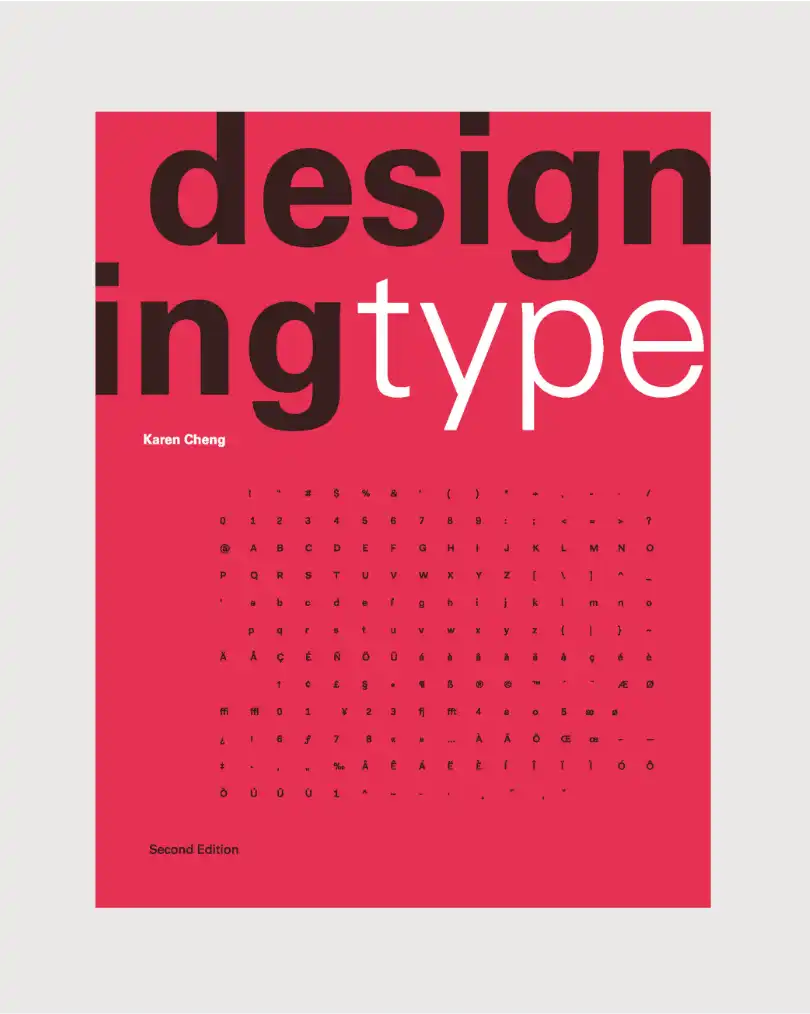
Karen Cheng
This book was my main reference while drawing my first typeface. The book examines each letter in detail, comparing examples across different classifications of typefaces. It is very useful for figuring out visual compensations, metrics, and relationships between upper and lowercase.
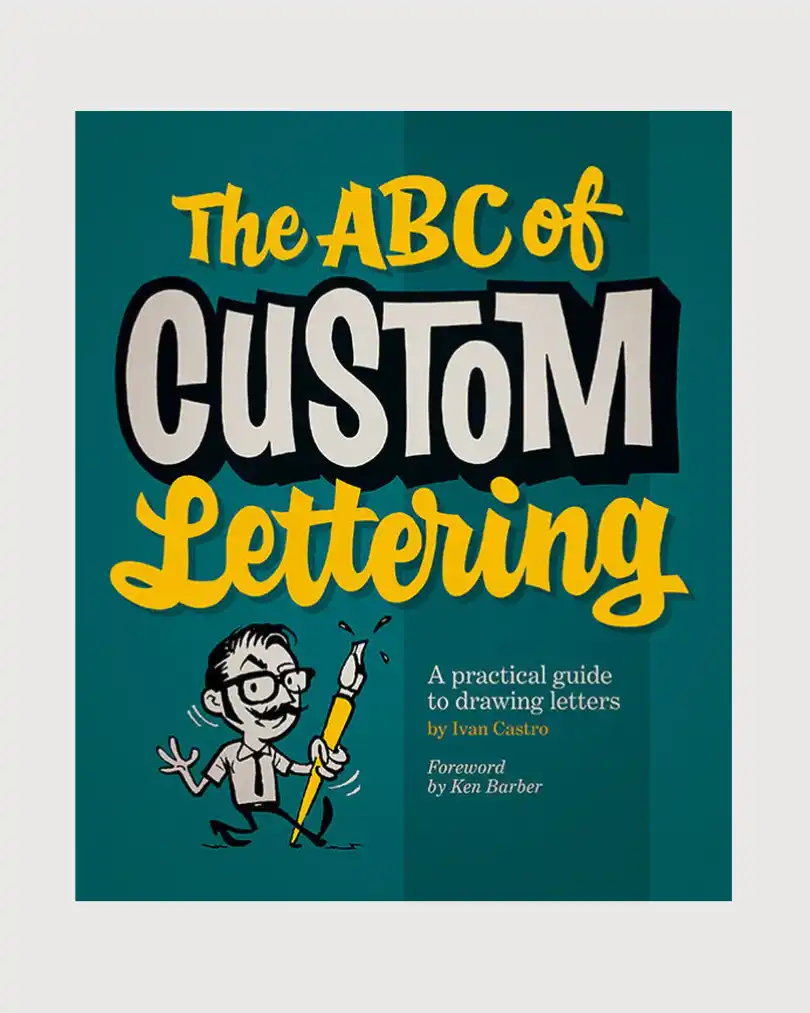
Ivan Castro
Typographic letters come from calligraphic forms and learning some basic calligraphy really helps to create an understanding of letter shapes. The calligraphy section of this workbook is incredibly well-explained and has a great variety of traditional calligraphy models to reference.
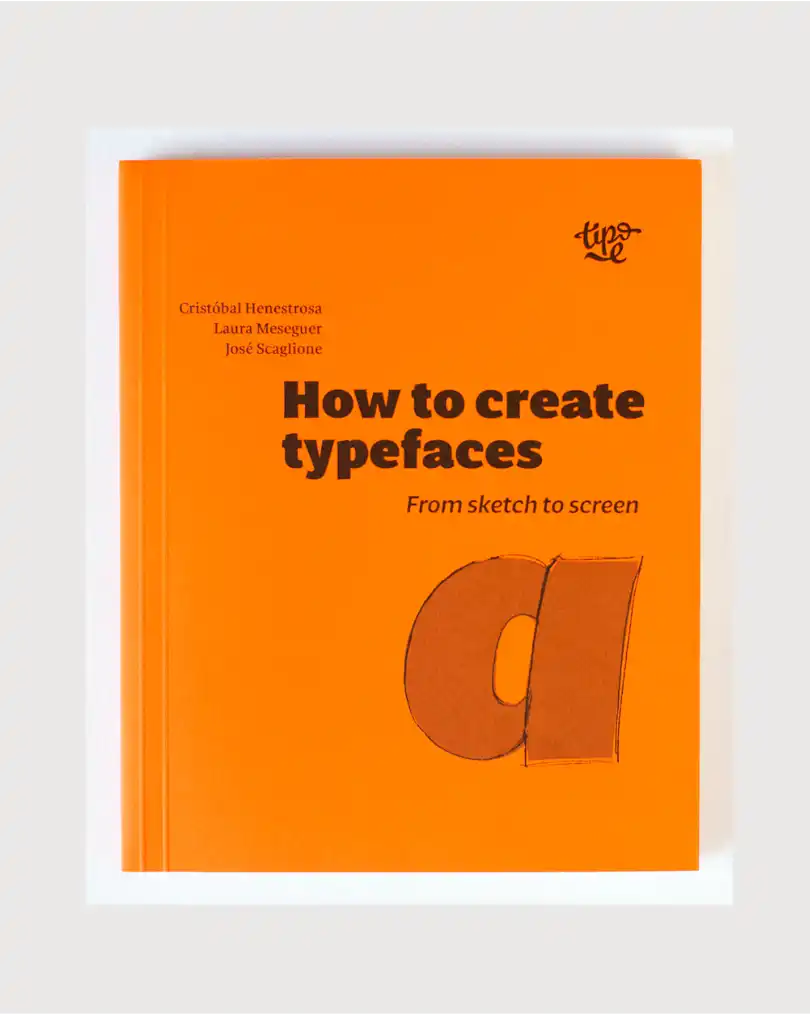
Cristóbal Henestrosa, José Scaglione, Laura Meseguer
This overview of the type design industry provides an essential look into the process of making a typeface. I read it after I had been working in the industry for 5 years and it confirmed a lot of the things I had learned along the way.
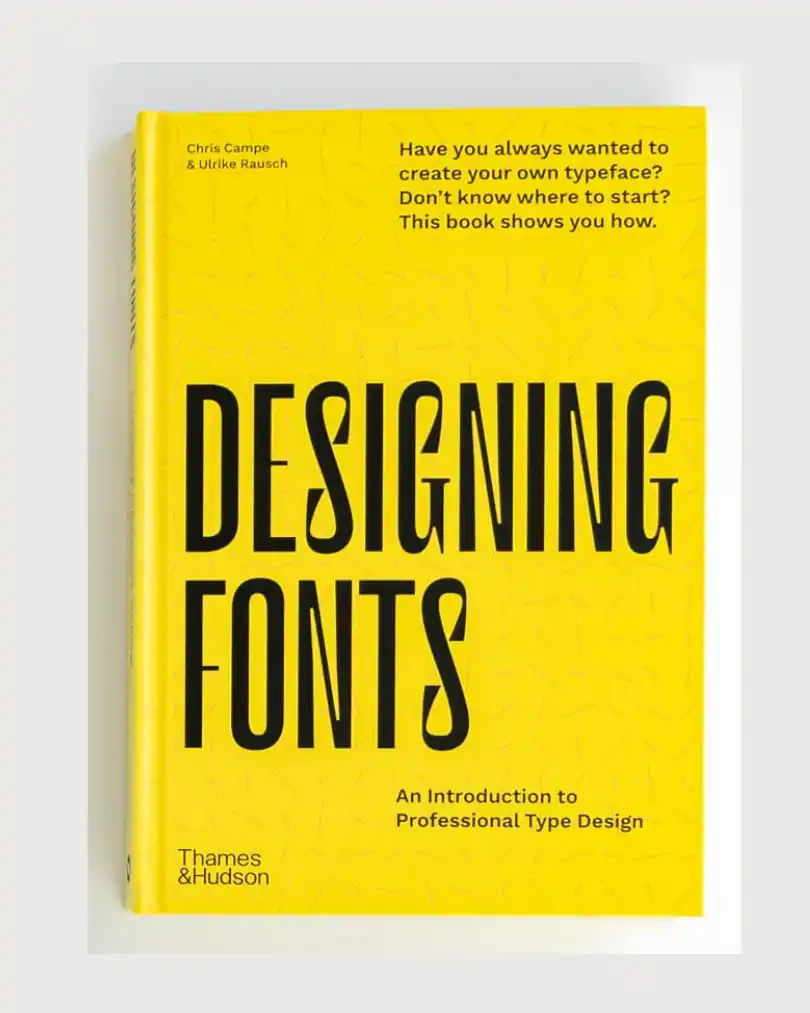
Chris Campe and Ulrike Rausch
I think the same book is available under two different titles but I haven’t confirmed. I own the copy with the yellow cover and it’s a great overview of the process of making fonts.
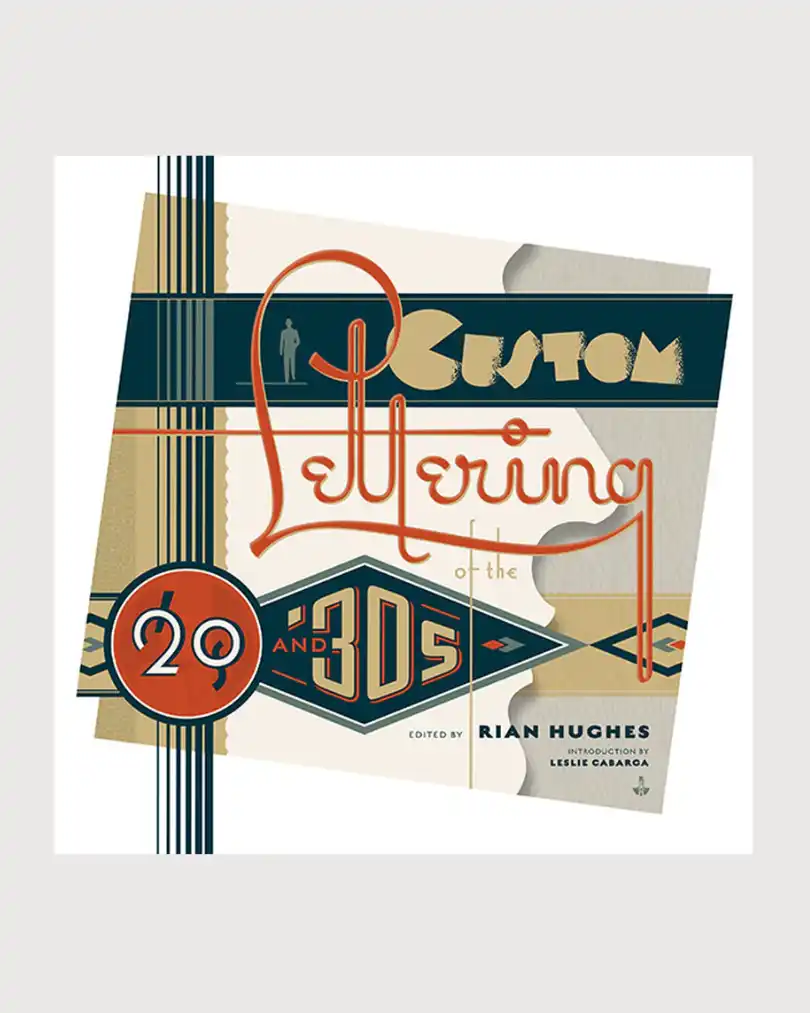
Rian Hughes
This whole series is amazing. Each collection gives an excellent feel for the lettering and visual spirit of the time. A treasure trove of ideas and excellent reference for nailing the tone of a particular era in your work.
Cees De Jong, Alston Purvis, Jan Tholenaar
I didn’t immediately appreciate this book when I bought it in second year university – it was full of old stuff. When I gained an appreciation for old type specimens (especially the layouts and ornamentation) this book became one of my favourites. Also serves as a great jumping off point for researching more into a specific specimen book.
Edward & the Staff of Photo-Lettering (editors) Rondthaler
So many alphabets! This old photo type catalog is an excellent reference on how other designers solved certain problems in certain styles. Many of the specimens in here are no longer accessible because they were never made into a digital format so there are some unique things to look at in here.
Toshi Omagari
Pixel type is freaking cool! I heard Toshi had to play through and beat a lot of the games in order to collect the full specimen of each typeface in this book. It is impressive how much variation can be achieved on an 8x8 grid.
Shoko Mugikura, Tim Ahrens
Thinking of making a text-specific style for your design? This is a must-read detailed study of methods that make type work in small sizes.
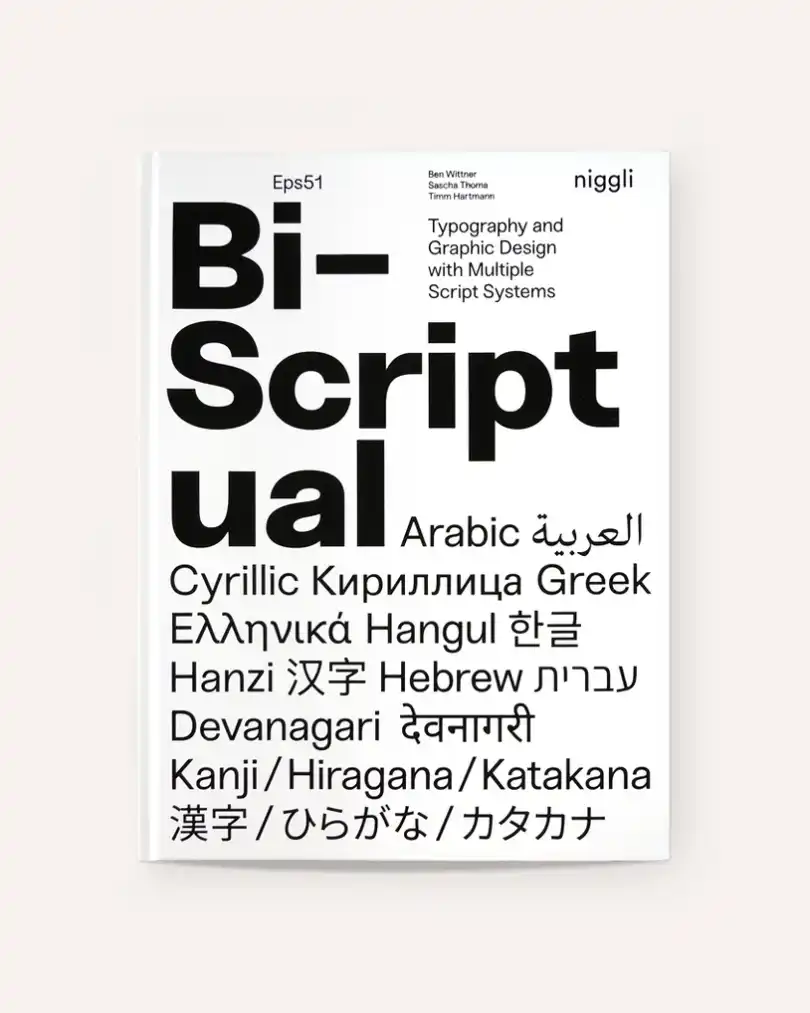
Sascha Thoma, Ben Wittner, Timm Hartmann
Are you setting two different scripts next to each other in a design or just curious about other scripts and want an overview? This book is for you!
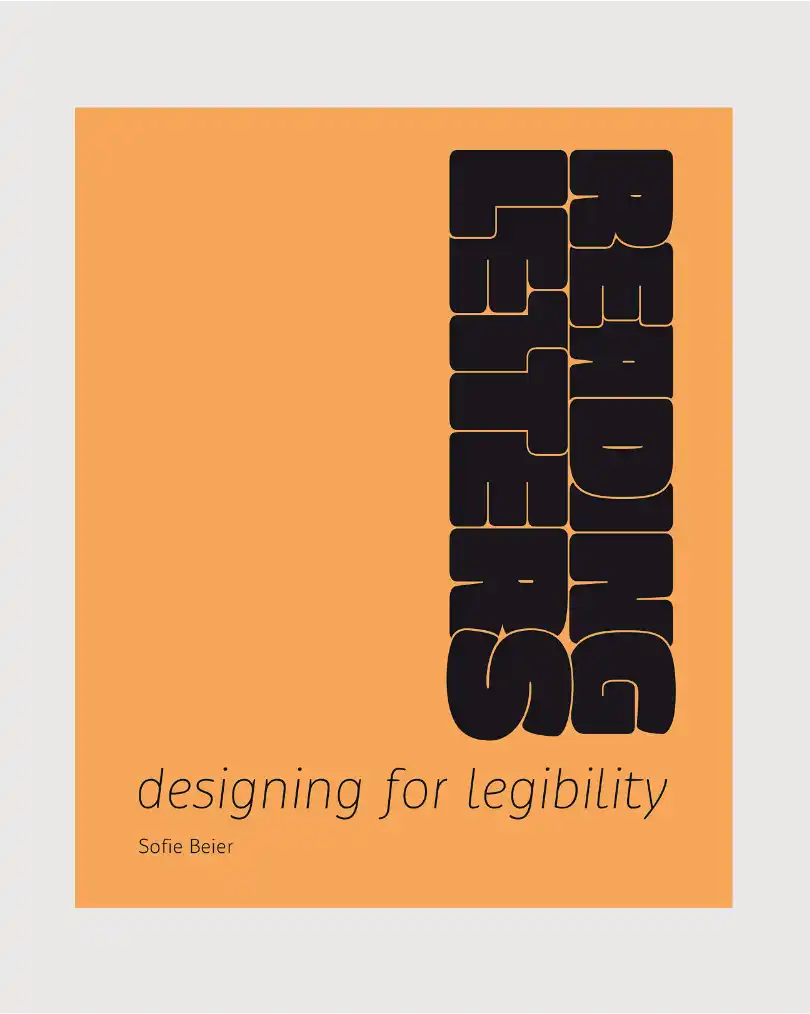
Sofie Beier
A scientific look into legibility. This book explains what happens in our mind when we read and how we understand letters. It gives a new perspective on how your type designs will be understood and interacted with.
Hendrik Weber
A deep dive into what actually makes an italic an italic. It gets a bit academic but I’m into it, it really helped me figure out how to approach italics from a conceptual level.